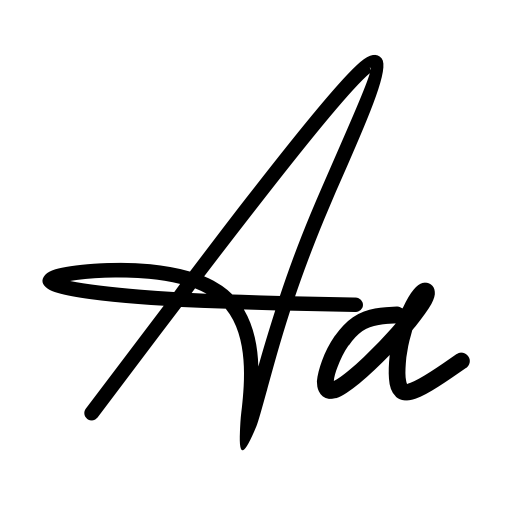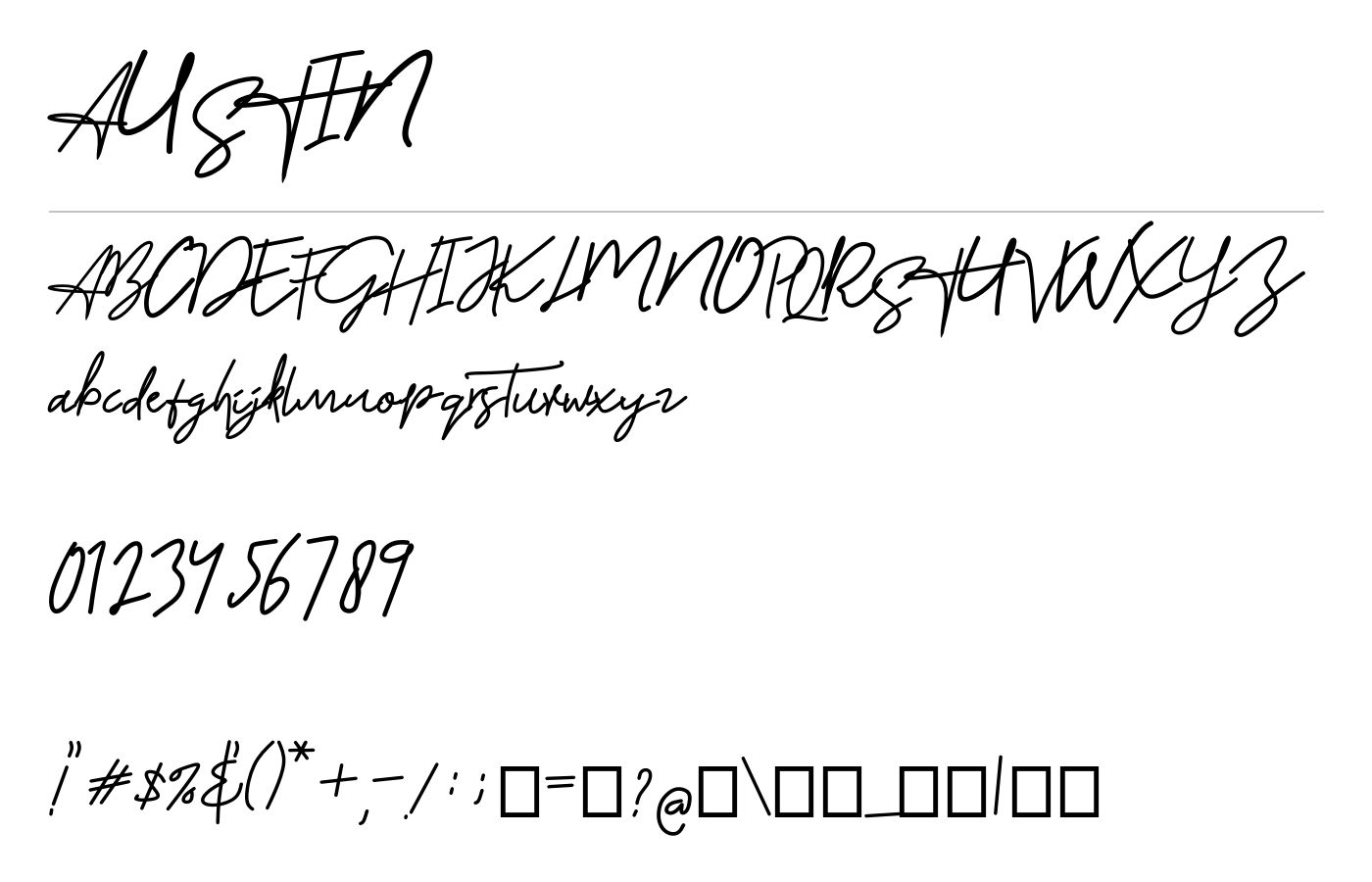
AUSTIN is a lively handwritten script font with a casual, energetic style that mimics natural pen strokes. Its irregular, flowing letterforms feature a medium weight with a narrow width, creating a playful yet dynamic feel ideal for personal branding, creative projects, and informal headlines. This font works well where an authentic, expressive touch is needed to add warmth and personality.
AUSTIN Font